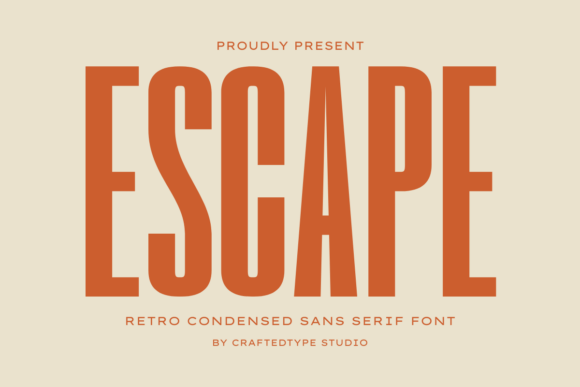
Escape Font
Escape Font is a striking retro condensed sans serif font that blends vintage charm with modern sophistication. Characterized by its exceptionally tall and narrow letterforms, this font is designed to command attention while maintaining a clean and minimalist aesthetic. Whether you’re aiming for a 70s-inspired travel poster or a high-end fashion magazine cover, Escape provides the perfect vertical impact for your designs.